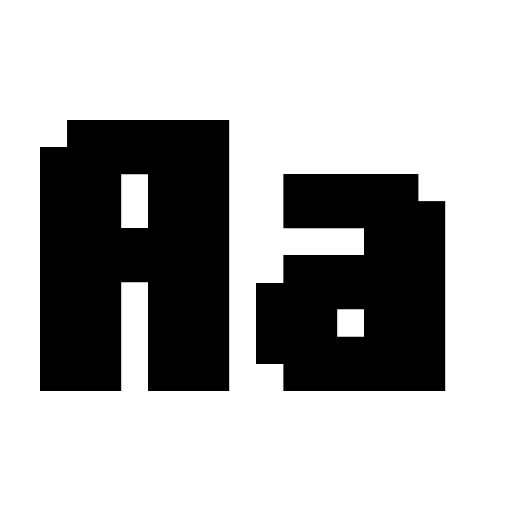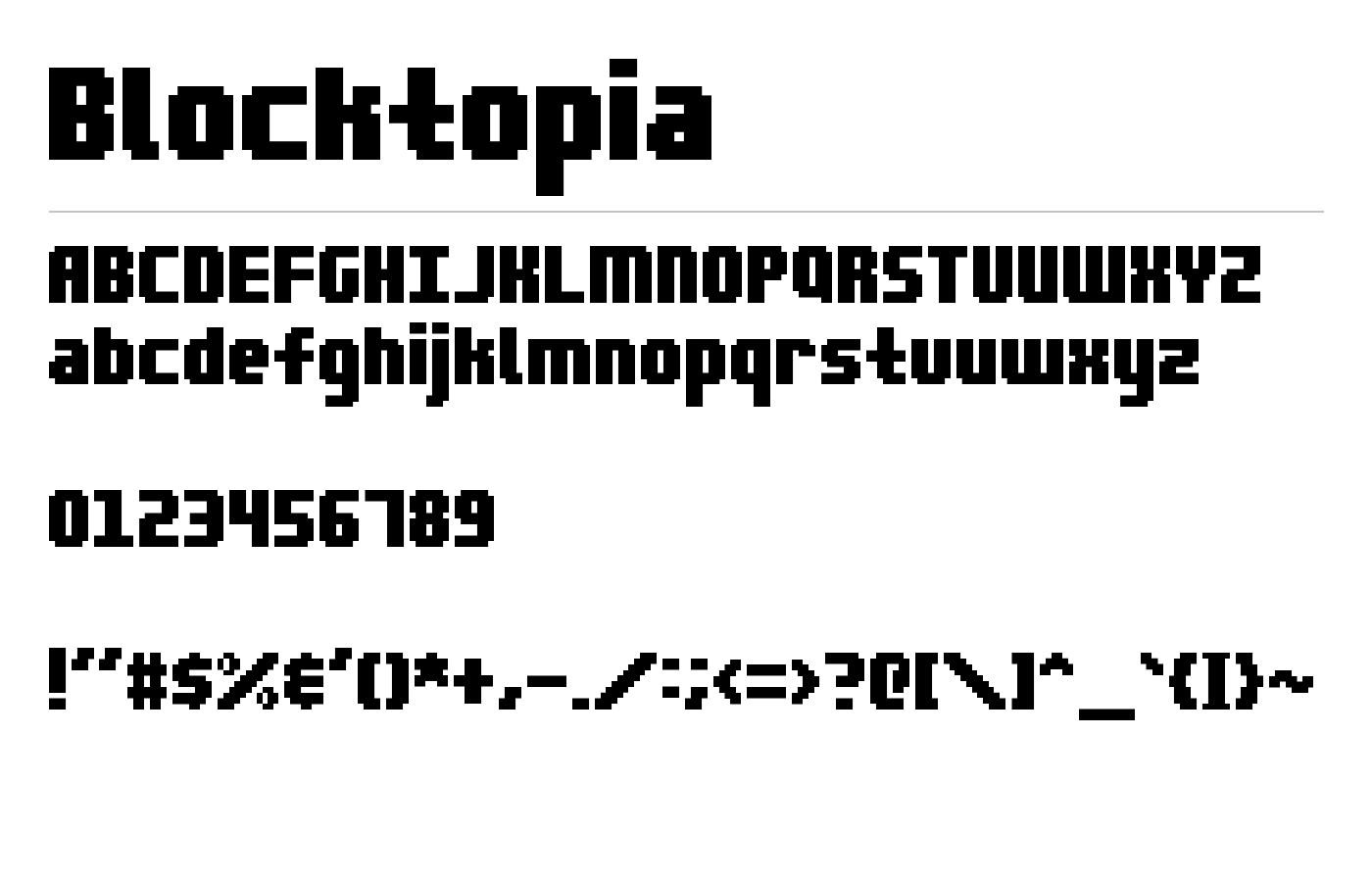
Blocktopia is a bold, blocky sans serif font characterized by its strong geometric shapes and pixel-inspired design. Its heavy weight and square forms make it ideal for creating a retro, digital, or gaming aesthetic, lending a playful yet sturdy feel to branding, headlines, and posters. This font works particularly well in projects that require a distinctive, tech-savvy look with a touch of nostalgia.
Blocktopia Font
About Blocktopia Font